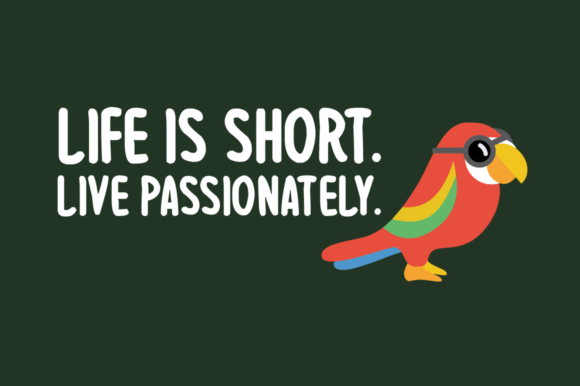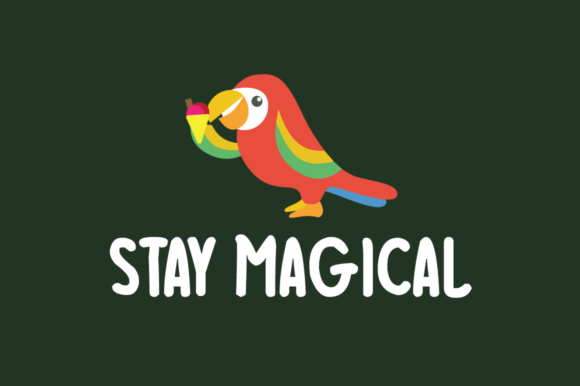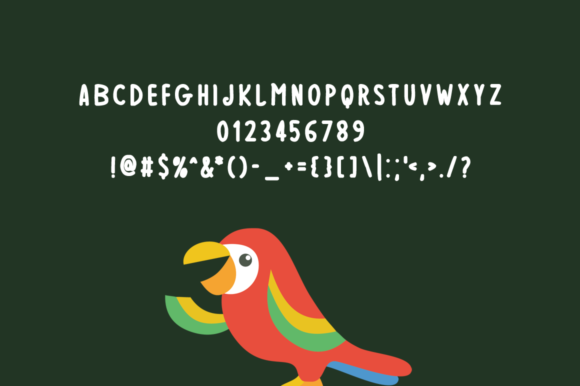
Introduction to Jabked Font
Remember that moment when you’re working on a creative project and you’re stuck trying to find the perfect font to bring it all together? The one that screams ‘fun’, ‘playful’, and ‘high quality’? That’s exactly what I experienced when I stumbled upon the Jabked Font.
This quirky, bold display font has a certain charm to it that’s hard to ignore. Its slightly weird and bouncy feel makes it perfect for adding a touch of whimsy to your design. And the best part? It’s completely free to download and use in your next project, complete with a transparent background.
As a valuable design resource, the Jabked Font is sure to become a go-to choice for designers looking to add some personality to their work. Its unique style is guaranteed to make your designs stand out and leave a lasting impression on your audience.
Key Features of Jabked Font
- High-quality font with a unique, creative design perfect for various projects
- Supports a wide range of languages, including Latin, Cyrillic, and Greek alphabets
- Perfect design resource for creative professionals, graphic designers, and artists
- Comes in a single weight with various font sizes available, making it suitable for various design applications
Honest Review: Jabked Font
I recently had the chance to work with the Jabked Font, a versatile and creative font that’s perfect for designers looking for a high-quality design resource. One of the standout features of this font is its transparent background, which allows for seamless integration into any design project.
What works well: ✨ The Jabked Font is incredibly versatile and can be used for a wide range of creative projects, from logos to brochures. The font is also highly customizable, allowing designers to easily adjust the font size, color, and style to suit their needs. Additionally, the font is available for free download, making it an excellent choice for designers on a budget.
However, there are a few limitations to consider: ⚠️ The font may not be suitable for all design projects, particularly those requiring a more formal or traditional look. Additionally, the font’s versatility can sometimes make it difficult to choose the right style or size for a particular project.
Overall, I’m impressed with the Jabked Font and would highly recommend it to designers looking for a high-quality design resource. While it may have a few limitations, the font’s versatility and customizability make it an excellent choice for a wide range of creative projects.
- Perfect for a wide range of creative projects
Common Use Cases for Jabked Font
The Jabked Font is ideal for:
1. Creative projects, such as logos, posters, and infographics.
Is Jabked Font suitable for use in large-scale designs?
Jabked Font is a high-quality design resource that is suitable for use in a wide range of creative projects, from small-scale designs to large-scale applications. Its clean and elegant design makes it an excellent choice for use in logos, branding materials, and other high-visibility designs.